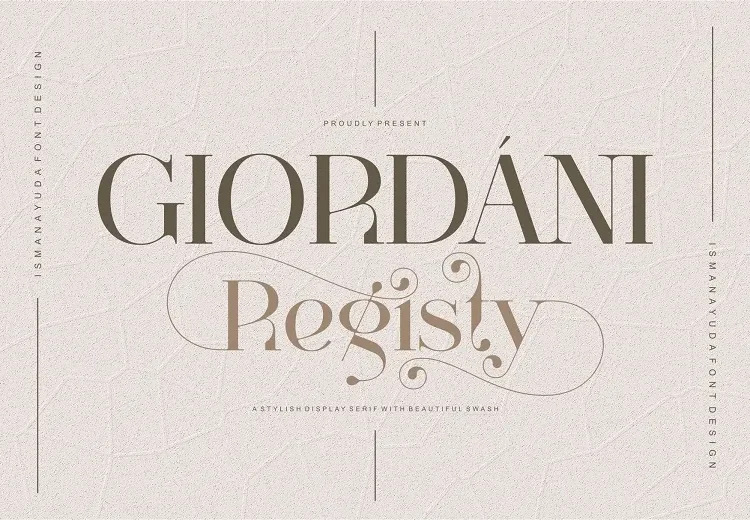
Giordani Registy Font
Giordani Registy is a refined serif display font that effortlessly blends classic elegance with a touch of femininity. With its sophisticated design and beautiful alternate styles, this font is perfect for elevating a wide range of design projects.
Key Features of Giordani Registy:
• Classic Elegance: The font’s serif design and graceful curves offer a timeless, classic look suitable for high-end projects.
• Feminine Touch: The delicate and refined appearance adds a feminine quality, making it ideal for projects that require a touch of elegance.
• Alternate Styles: Includes beautiful alternate characters to provide extra versatility and customization options for your designs.
Ideal Uses for Giordani Registy:
• Logos & Branding: Perfect for creating sophisticated and memorable logos that stand out with elegance.
• Invitations & Stationery: Ideal for wedding invitations, stationery, and any formal design needing a classic, refined touch.
• Social Media & Ads: Enhances social media graphics, advertisements, and product packaging with its stylish and polished look.
• Product Designs & Labels: Adds a touch of luxury to product packaging, labels, and other design elements.
• Photographs & Watermarks: Complements photographs and watermarks with its elegant and timeless style.
• Events: Suitable for various events where a classic and chic design is desired.